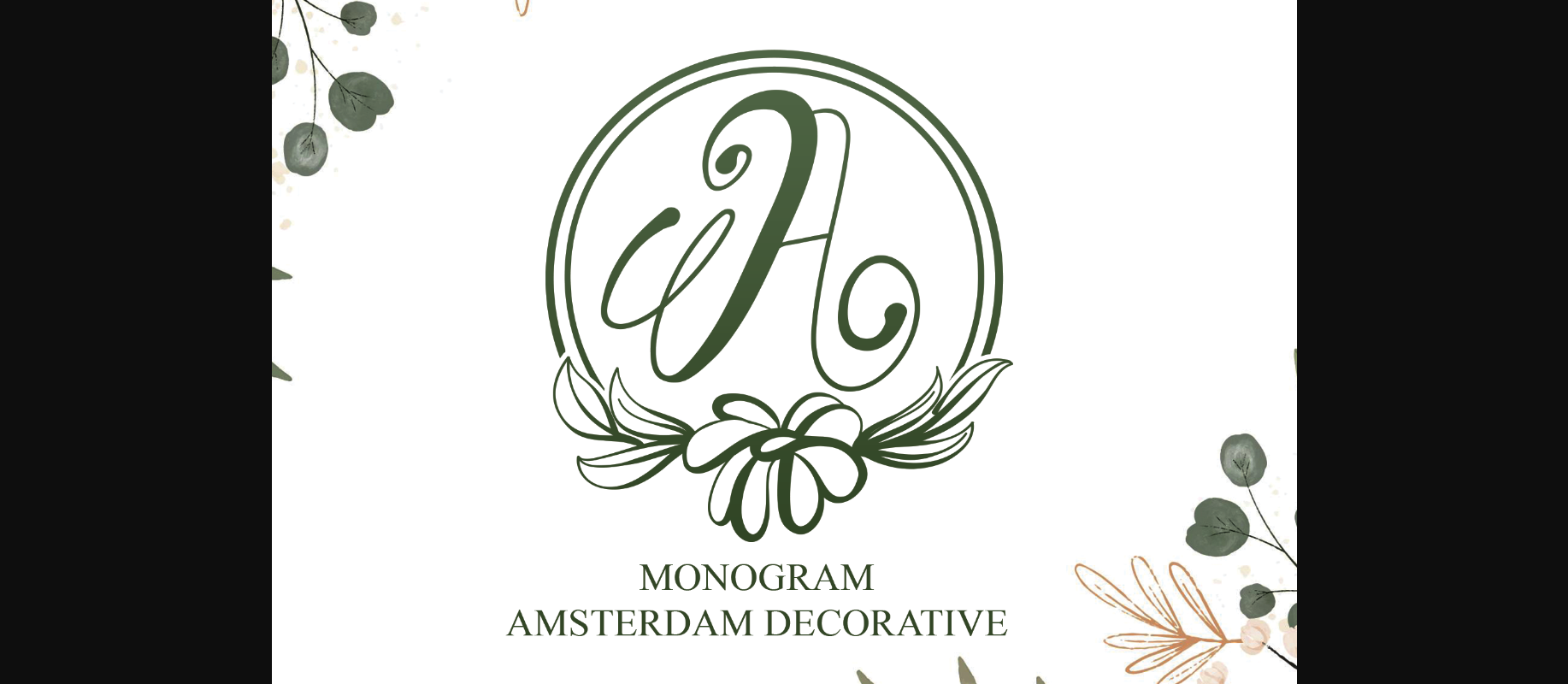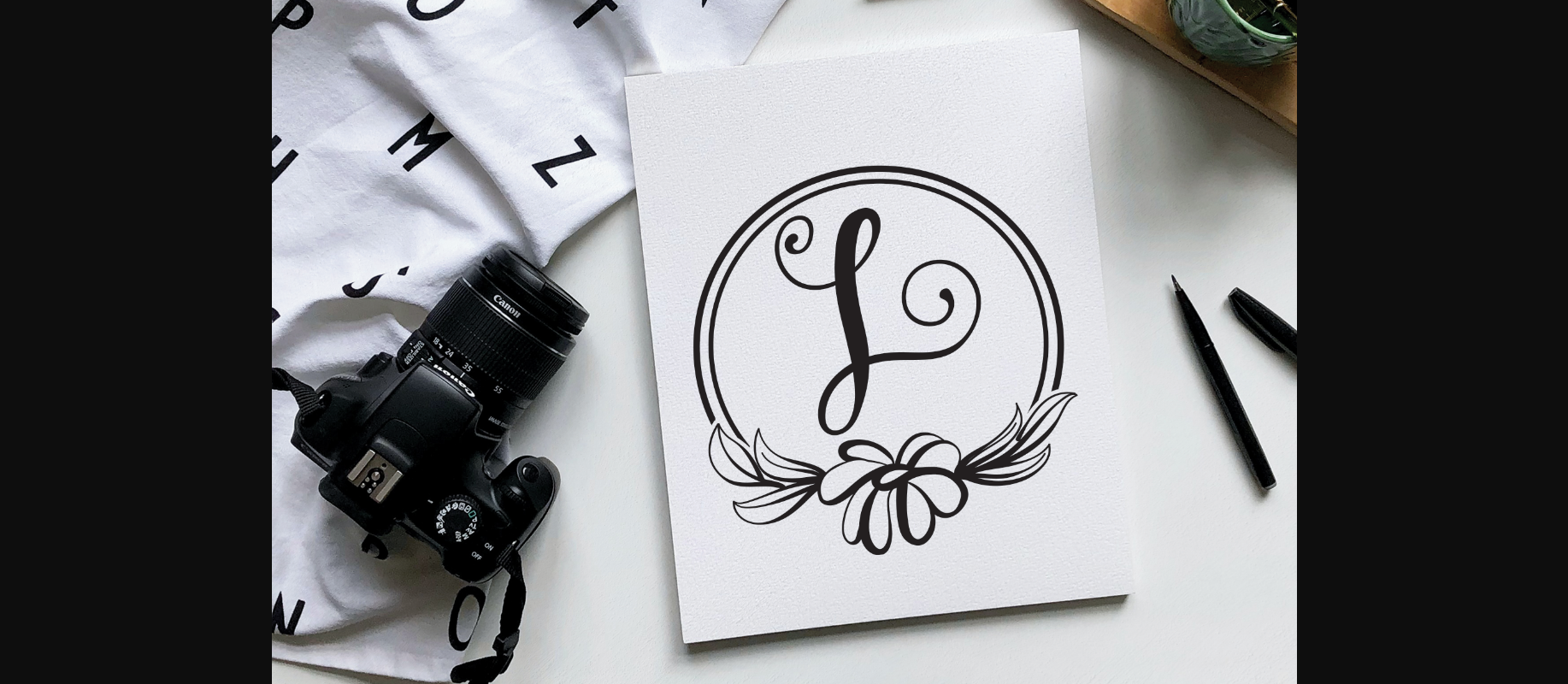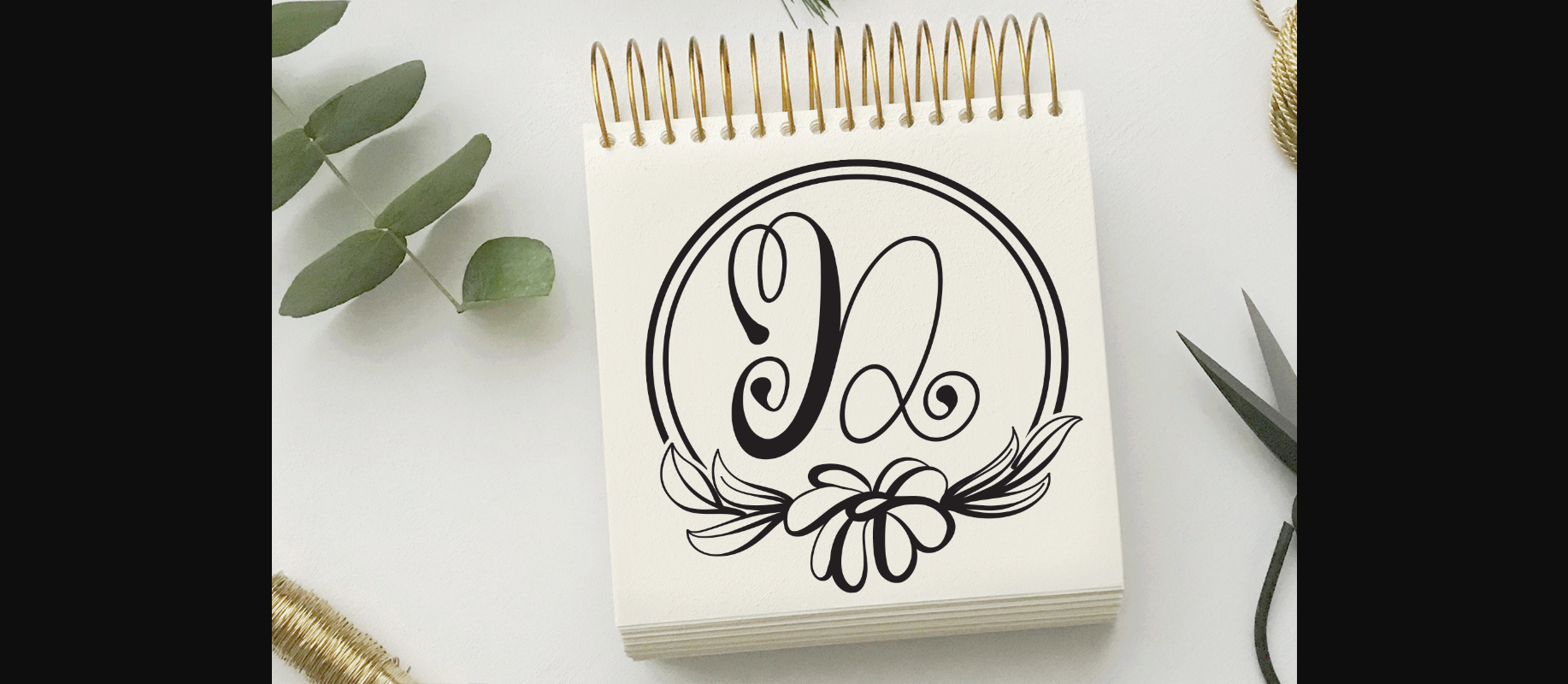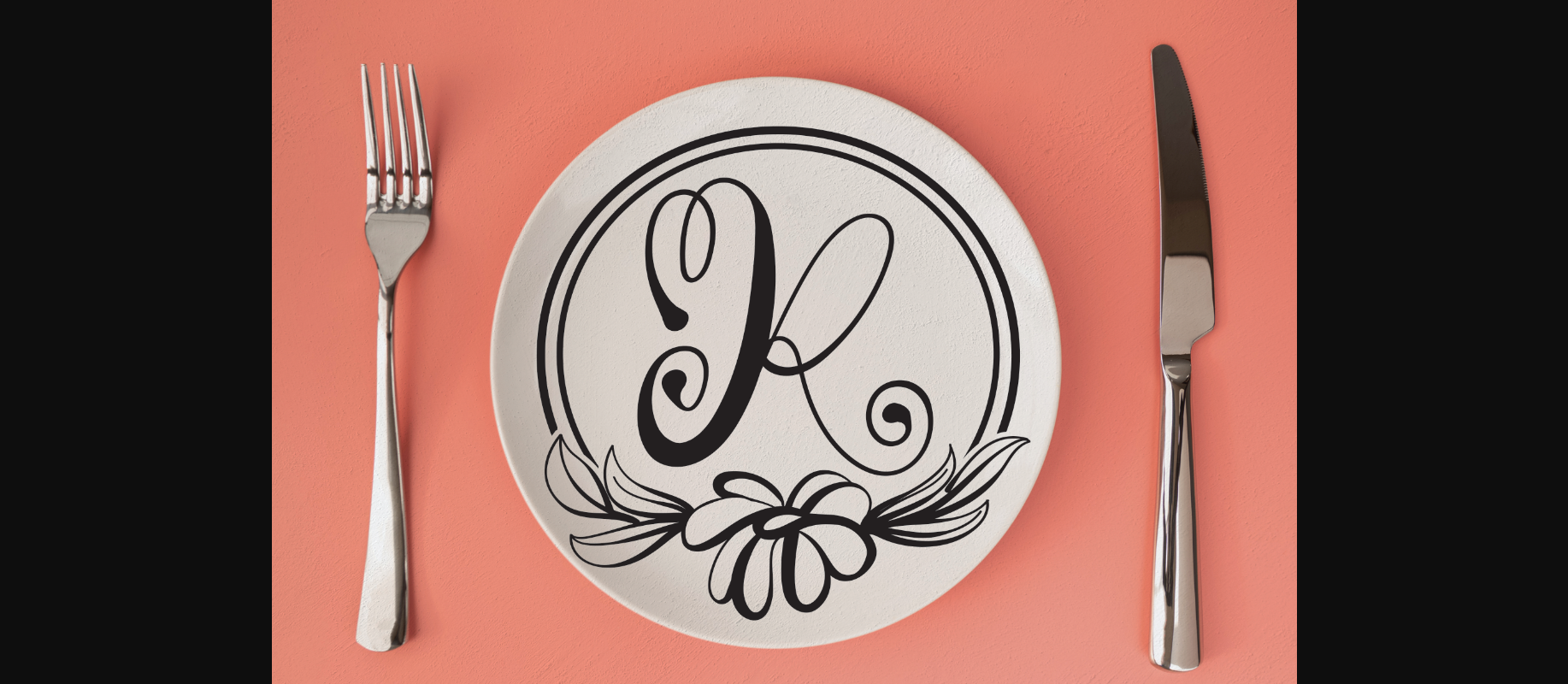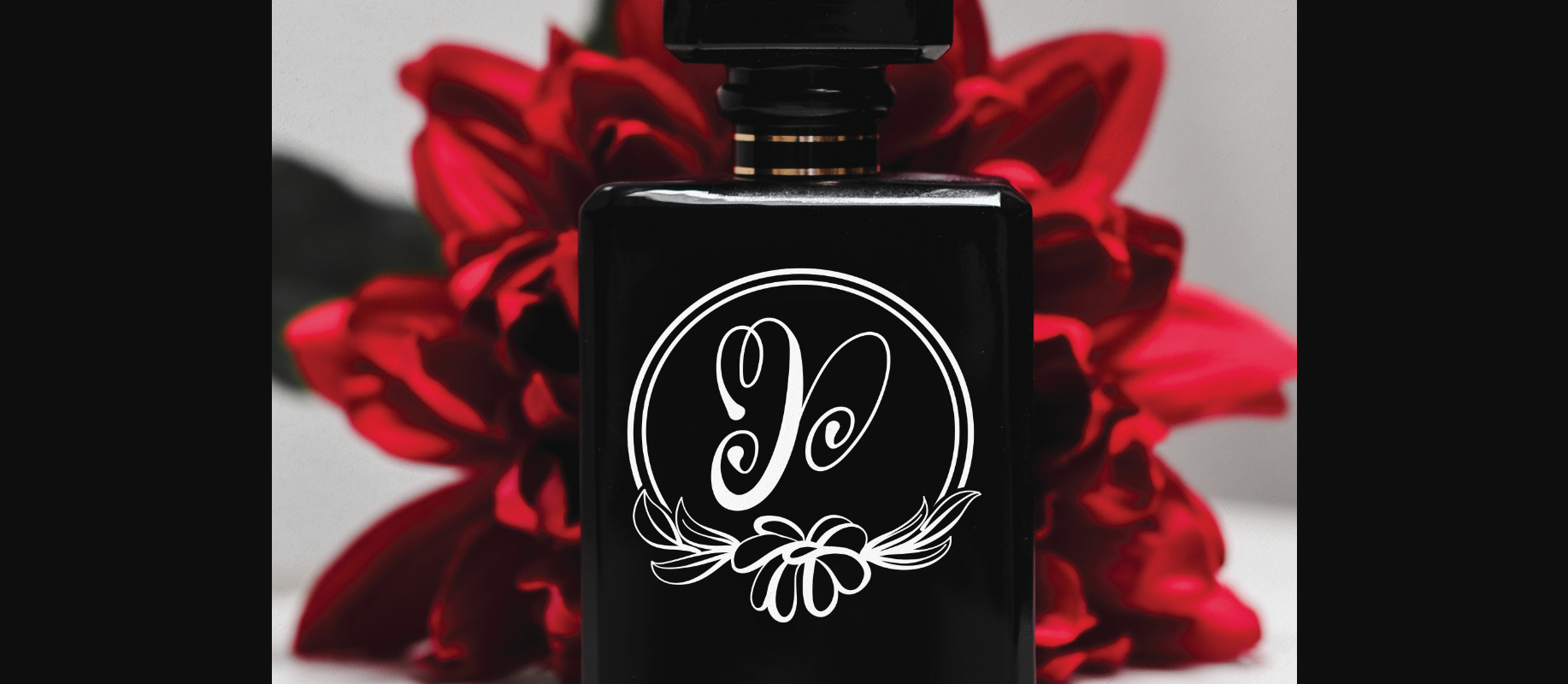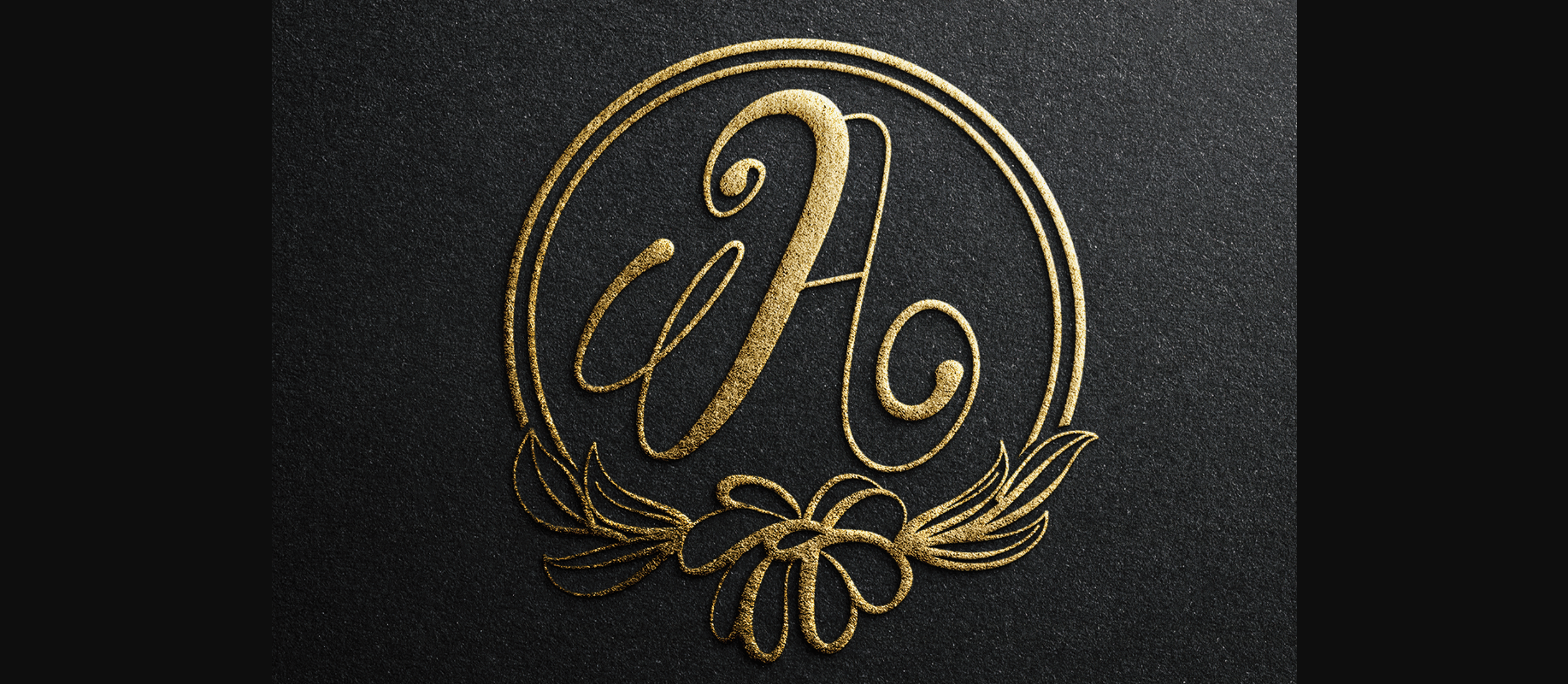
Amsterdam Font
About Amsterdam Font
Amsterdam is a beautiful and chic decorative font. Add this romantic and lovely looking font to each of your love letters, wedding invitations or favorite design ideas, and you will be astounded by the outcome.